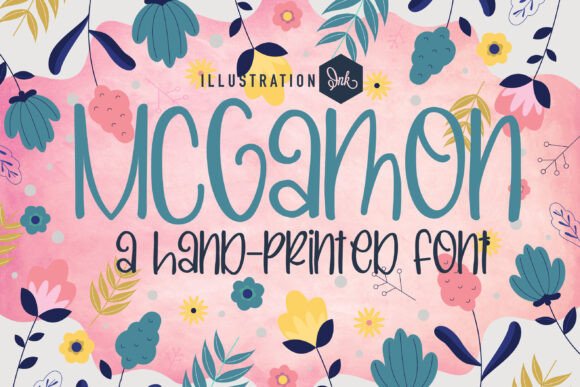
Mcgamon Font: A Hand-Crafted, Youthful, and Fun Font with a Unique Twist
In the world of typography, fonts play a crucial role in conveying the tone and personality of a message. Among the numerous font styles available, hand-crafted fonts have gained popularity for their unique, personalized, and often charming appearance. One such font that has caught the attention of designers and typography enthusiasts is the Mcgamon Font. In this article, we’ll explore the characteristics of the Mcgamon Font, the concept of hand-crafted fonts, and their uses in various design applications.
What is Mcgamon Font?
Mcgamon Font is a hand-crafted font that stands out for its youthful and fun appearance. As a font with no descenders, it has a distinct look that sets it apart from traditional fonts. The absence of descenders gives the font a sense of playfulness and modernity, making it suitable for designs that require a fresh and energetic feel.
The Mcgamon Font is a prime example of a hand-crafted font, which is designed to mimic the appearance of handwriting. Hand-crafted fonts are created to resemble the natural flow and imperfections of handwritten text, giving them a unique and personal touch.
What are Hand-Crafted Fonts?
Hand-crafted fonts, also known as handwritten fonts, are typefaces that are designed to look like they were written by hand. These fonts aim to capture the essence of handwriting, with its natural flow, varying line widths, and subtle imperfections. Hand-crafted fonts can range from formal and elegant to informal and playful, making them versatile for various design applications.
The process of creating a hand-crafted font involves a great deal of skill and craftsmanship. Font designers use a combination of traditional drawing techniques and digital tools to create each character, carefully paying attention to the nuances of handwriting. The result is a font that exudes a sense of personality and warmth, making it ideal for designs that require a human touch.
Characteristics of Hand-Crafted Fonts
Hand-crafted fonts, like the Mcgamon Font, have several distinct characteristics that set them apart from other font styles. Some of these characteristics include:
- Natural flow: Hand-crafted fonts often have a natural flow that mimics the movement of a pen or pencil on paper. This flow can be seen in the way the letters connect and the varying line widths.
- Imperfections: Hand-crafted fonts often include subtle imperfections, such as slight variations in letter size and shape, to give them a more human feel.
- Personality: Hand-crafted fonts can convey a sense of personality and emotion, making them ideal for designs that require a personal touch.
- Flexibility: Hand-crafted fonts can range from formal and elegant to informal and playful, making them suitable for a wide range of design applications.
Uses of Hand-Crafted Fonts
Hand-crafted fonts, like the Mcgamon Font, have a wide range of uses in various design applications. Some of the most popular uses include:
- Invitations and greeting cards: Hand-crafted fonts are often used for invitations, greeting cards, and other personal correspondence, as they add a touch of warmth and personality to the message.
- Branding and packaging: Hand-crafted fonts can be used in branding and packaging to give a product or service a unique and memorable identity.
- Advertising and marketing: Hand-crafted fonts can be used in advertising and marketing materials to add a touch of personality and whimsy to the message.
- Digital design: Hand-crafted fonts can be used in digital design, such as website headers, social media graphics, and email newsletters, to add a personal touch to the content.
Benefits of Using Hand-Crafted Fonts
Using hand-crafted fonts, like the Mcgamon Font, can offer several benefits to designers and businesses. Some of these benefits include:
- Unique identity: Hand-crafted fonts can give a brand or design a unique identity that sets it apart from others.
- Emotional connection: Hand-crafted fonts can create an emotional connection with the audience, as they often convey a sense of personality and warmth.
- Flexibility: Hand-crafted fonts can be used in a wide range of design applications, from formal and elegant to informal and playful.
- Creativity: Hand-crafted fonts can inspire creativity and imagination, as they often have a unique and artistic appearance.
In conclusion, the Mcgamon Font is a unique and charming hand-crafted font that offers a fresh and energetic feel to designs. As a font with no descenders, it has a distinct look that sets it apart from traditional fonts. Hand-crafted fonts, like the Mcgamon Font, have gained popularity for their unique, personalized, and often charming appearance. They offer a wide range of uses in various design applications, from invitations and greeting cards to branding and packaging. By using hand-crafted fonts, designers and businesses can create a unique identity, establish an emotional connection with the audience, and add a touch of personality and whimsy to their designs.
- What are the characteristics of hand-crafted fonts? Hand-crafted fonts often have a natural flow, imperfections, personality, and flexibility.
- What are the uses of hand-crafted fonts? Hand-crafted fonts can be used in invitations, greeting cards, branding, packaging, advertising, marketing, and digital design.
- What are the benefits of using hand-crafted fonts? Using hand-crafted fonts can offer a unique identity, emotional connection, flexibility, and creativity to designs.